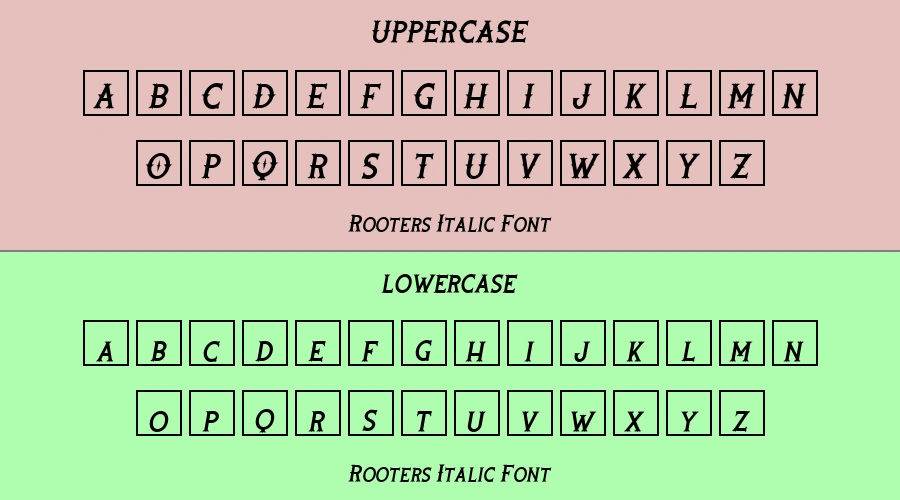
About Rooters Italic Font
Rooters Italic Font represents a sophisticated approach to type design, balancing harmonious shapes with aesthetic balance. Perfect for corporate communications, this font family showcases impressive versatility and market credibility throughout its character set. Designers appreciate its versatility and reliability.
Designers will appreciate nuanced touches including ligatures and arrow sets, adding sophistication to any project. These features become apparent in research articles, where hinting quality matters most. The careful treatment of spur details and contemporary relevance ensures optimal performance.
Rooters Italic Font |